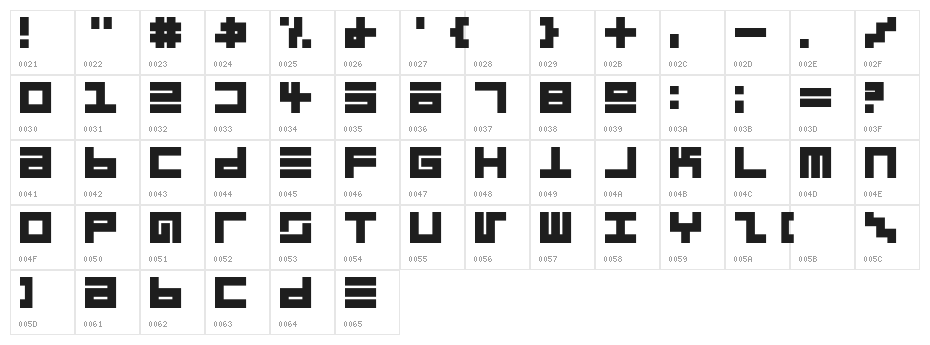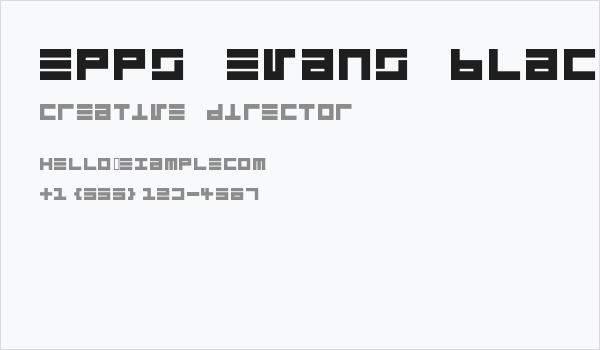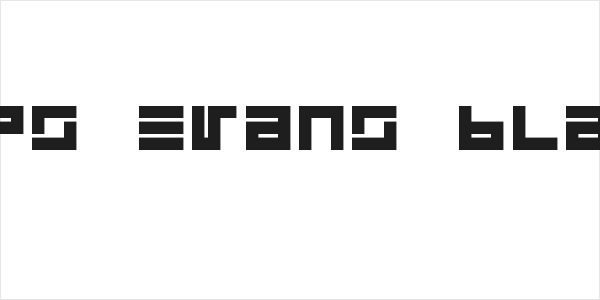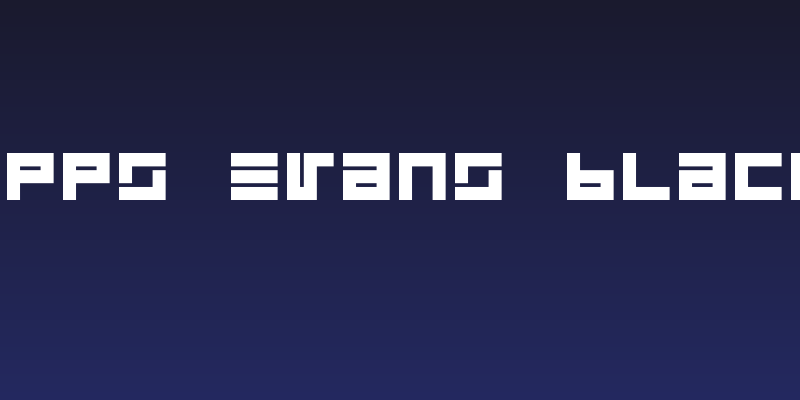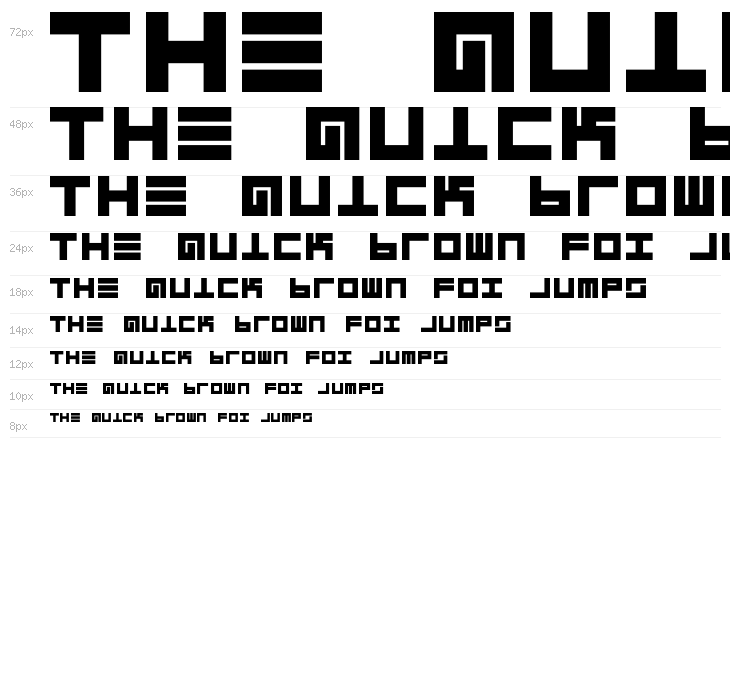
Epps Evans Black Font
Epps Evans Black Description
This font exhibits a bold and geometric style, characterized by its blocky and angular letterforms. Each character is constructed with thick, uniform strokes, giving it a strong and impactful appearance. The design is reminiscent of digital or pixelated text, with a futuristic and tech-inspired aesthetic. The uppercase and lowercase letters maintain a consistent height, contributing to a cohesive and structured look. The numerals and special characters follow the same design principles, ensuring uniformity across all glyphs. This font is well-suited for projects that require a modern and edgy feel.
| Proposed Projects | Ideal for tech-related branding, video game titles, digital interfaces, and modern posters. |